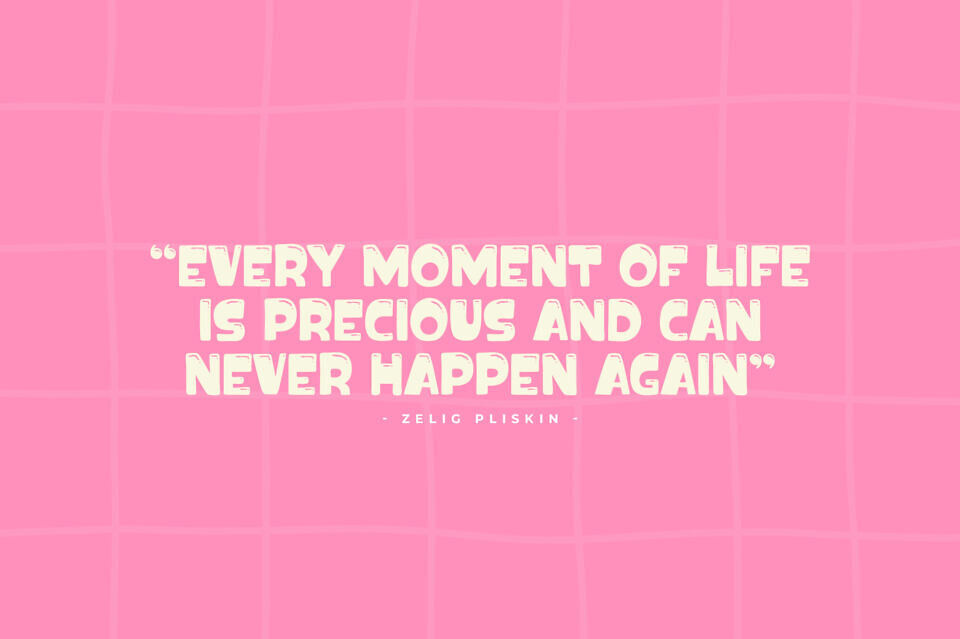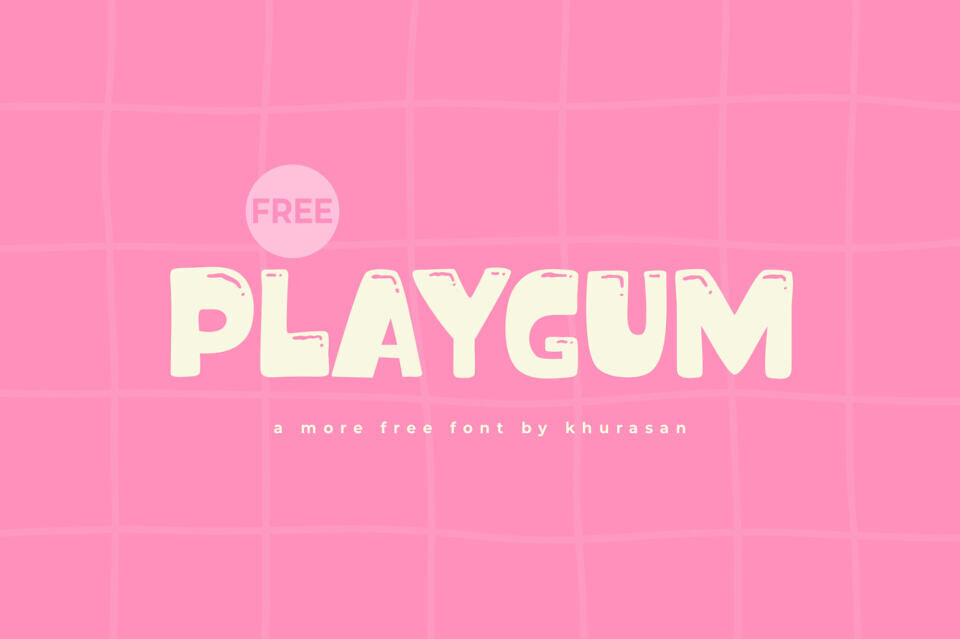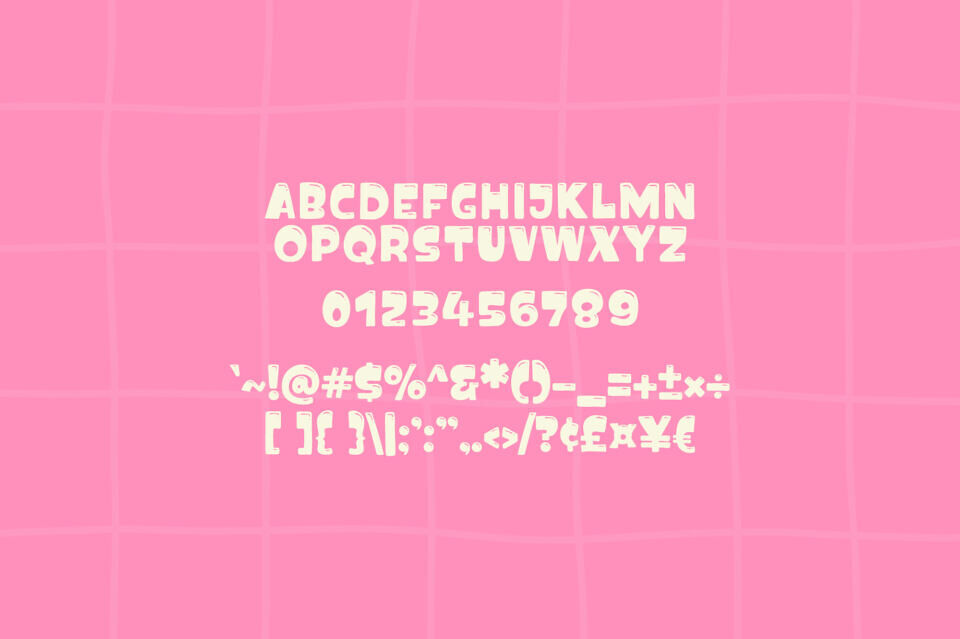
Playgum Font
Playgum is a free modern and cute font perfect for posters, logos, magazines, book covers, banners, and many more! Get this amazing font, and use it to create lovely designs.